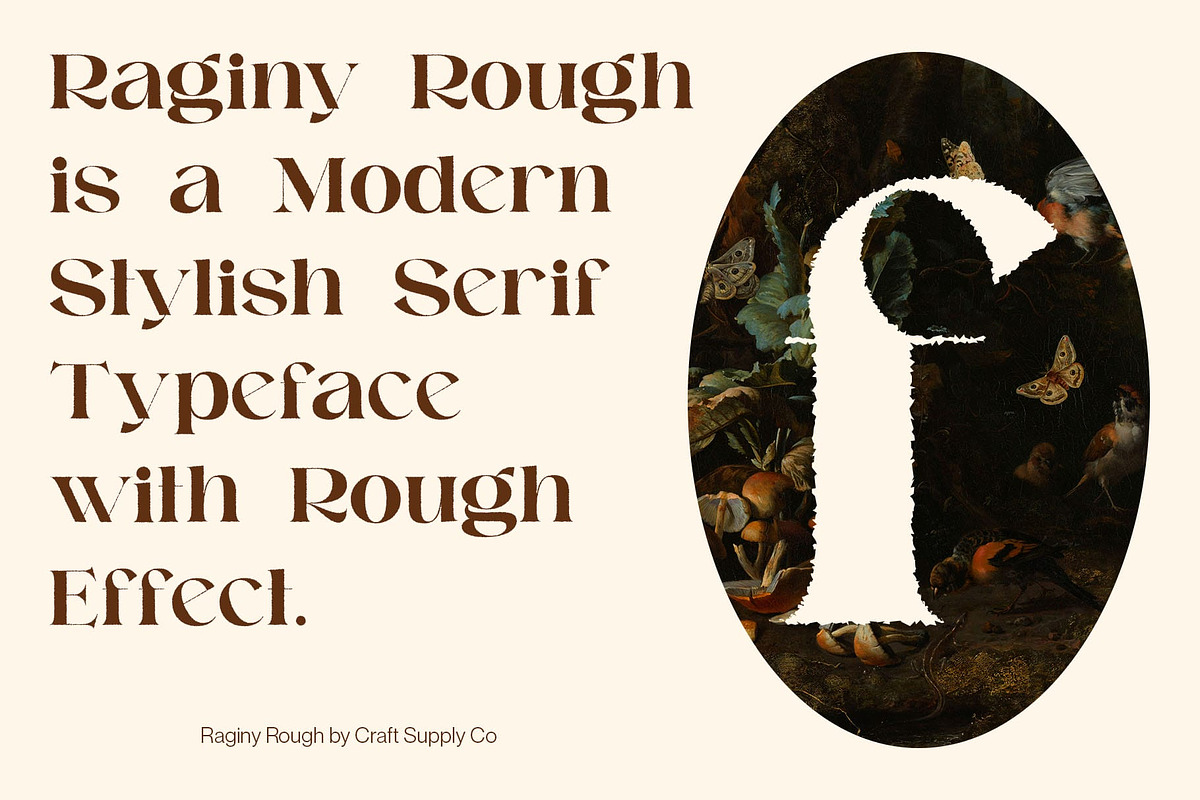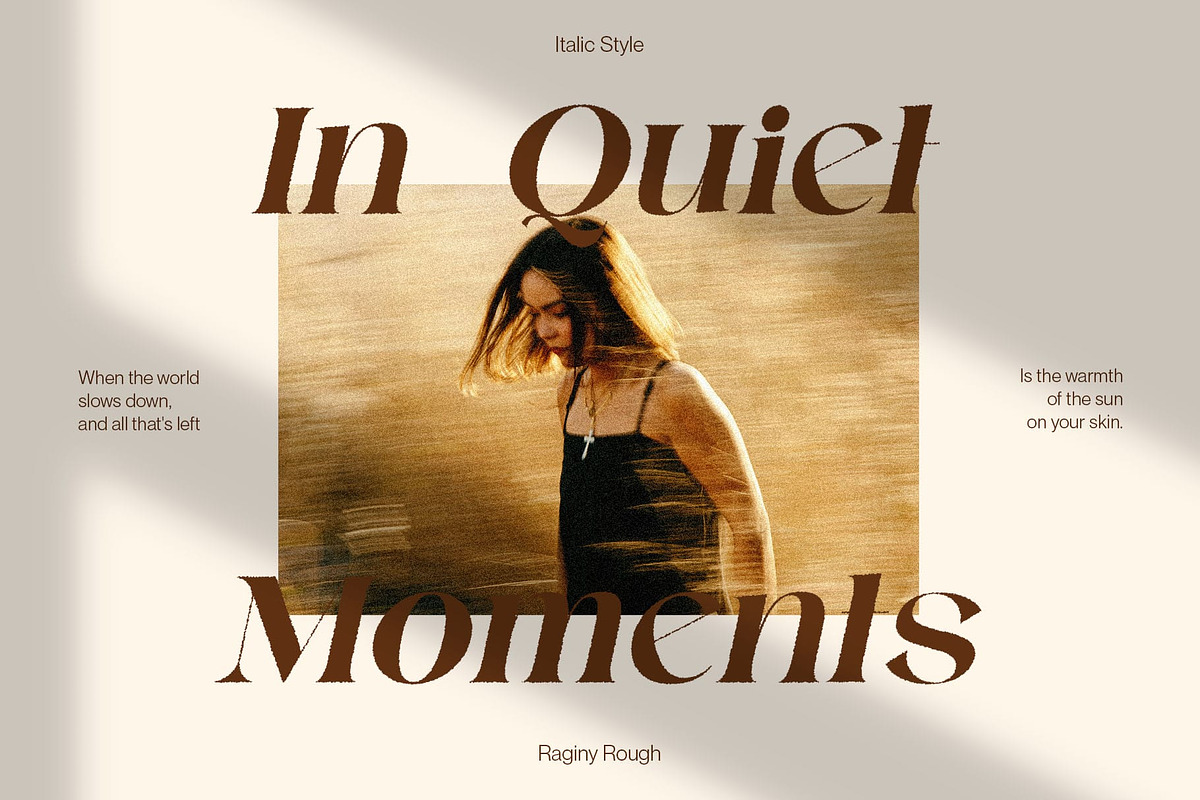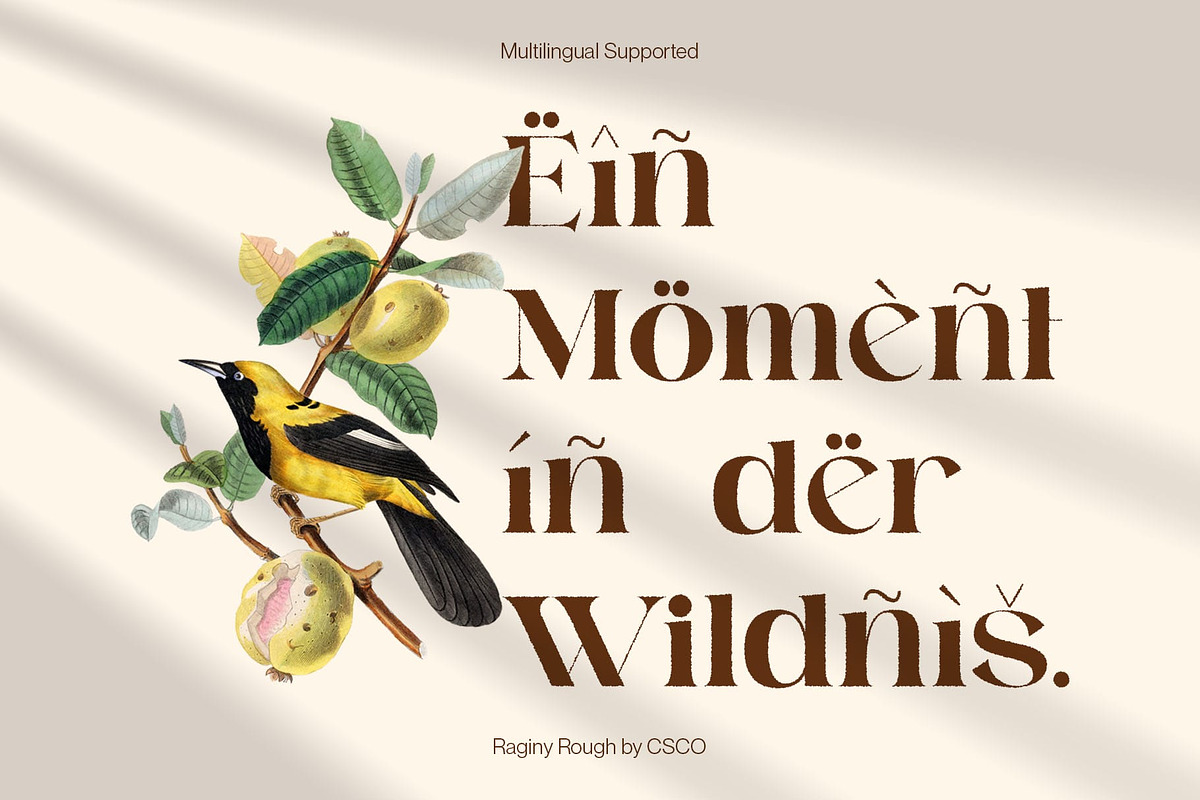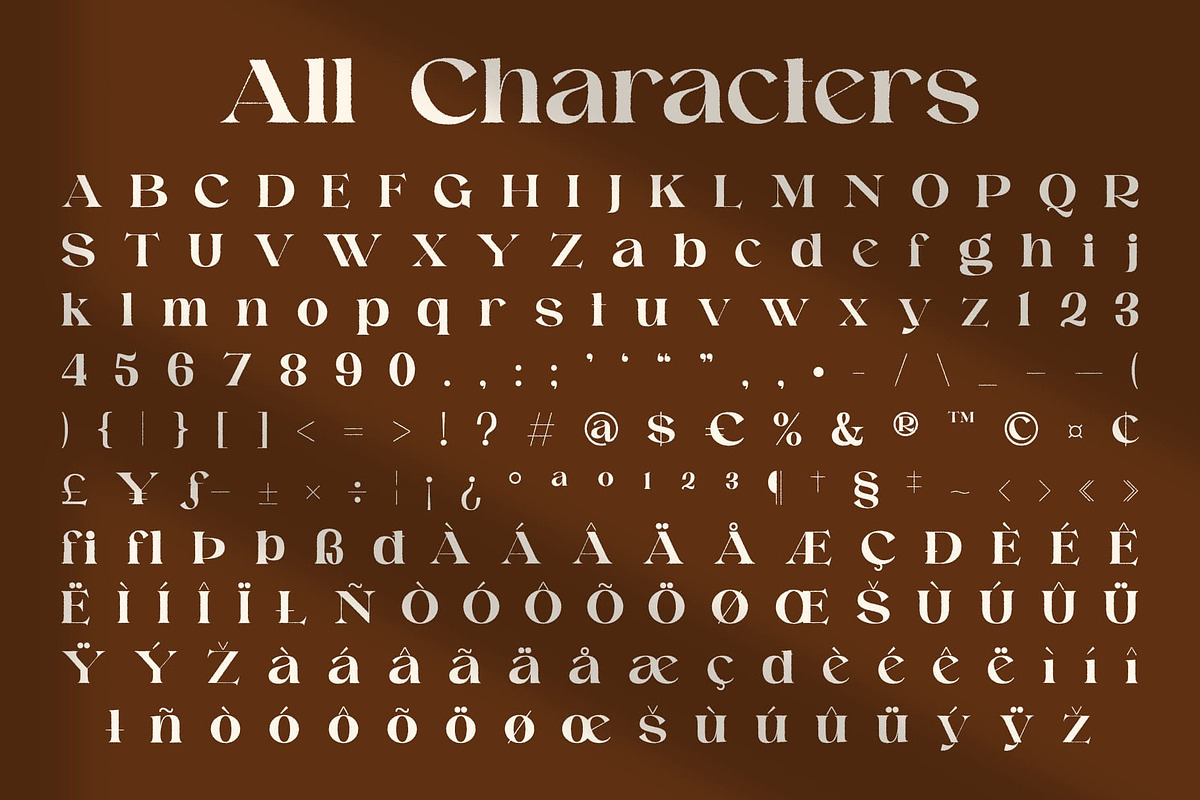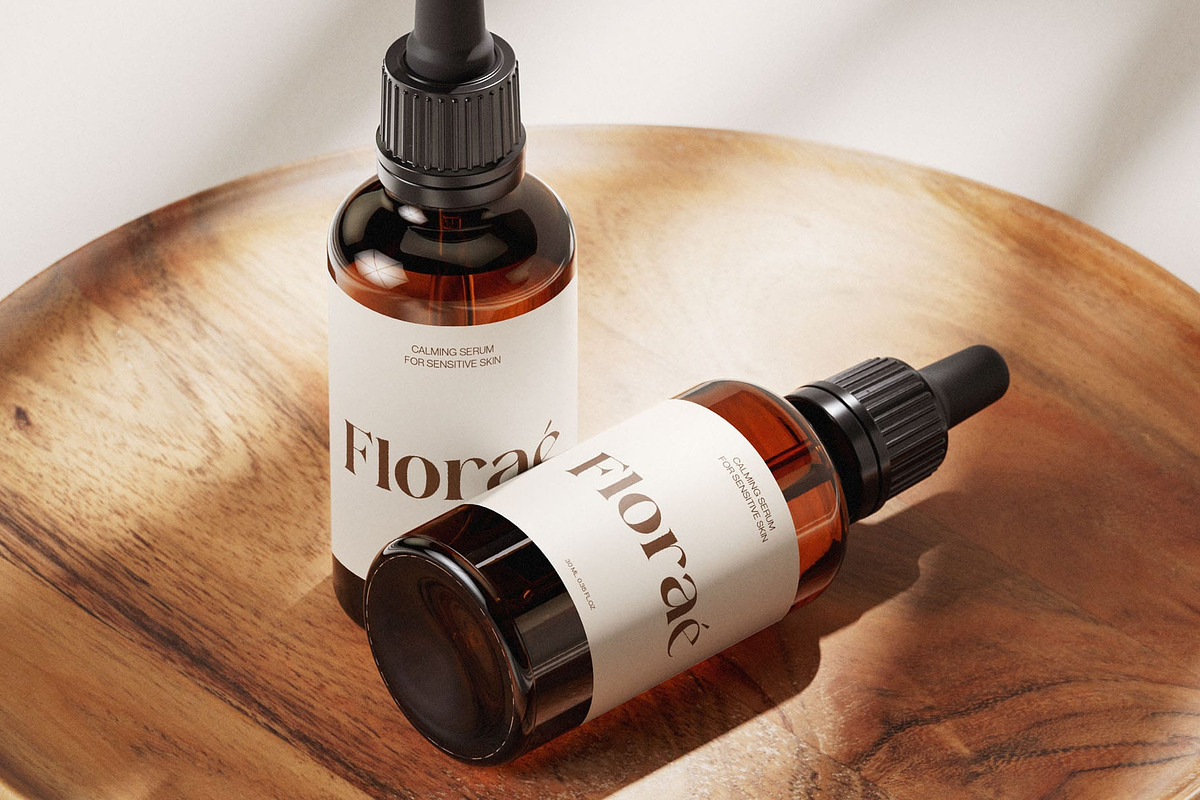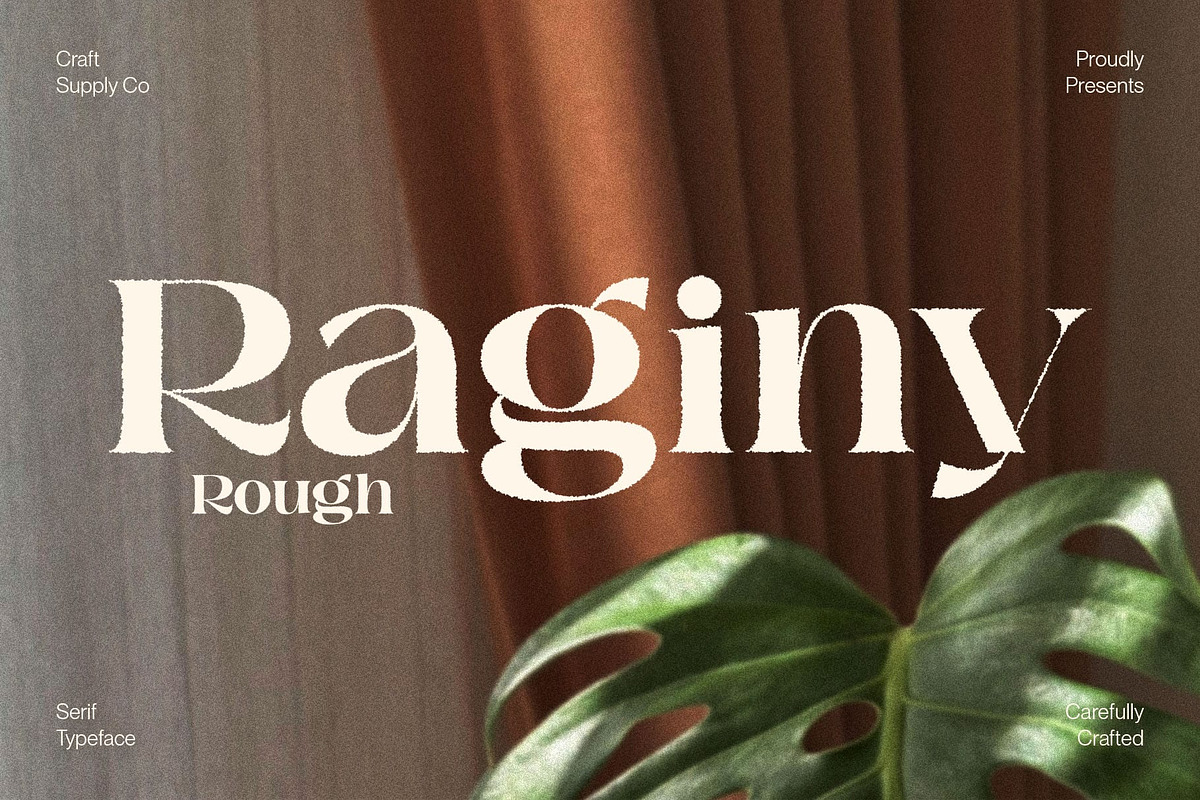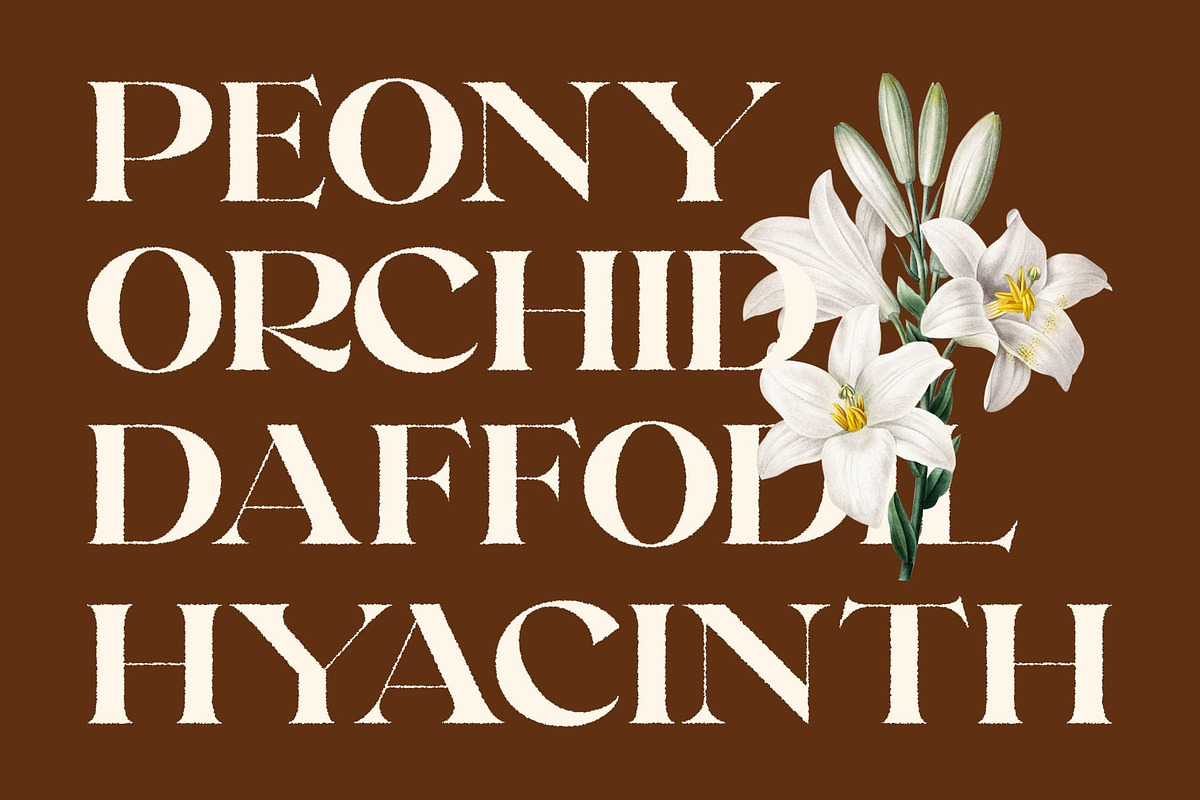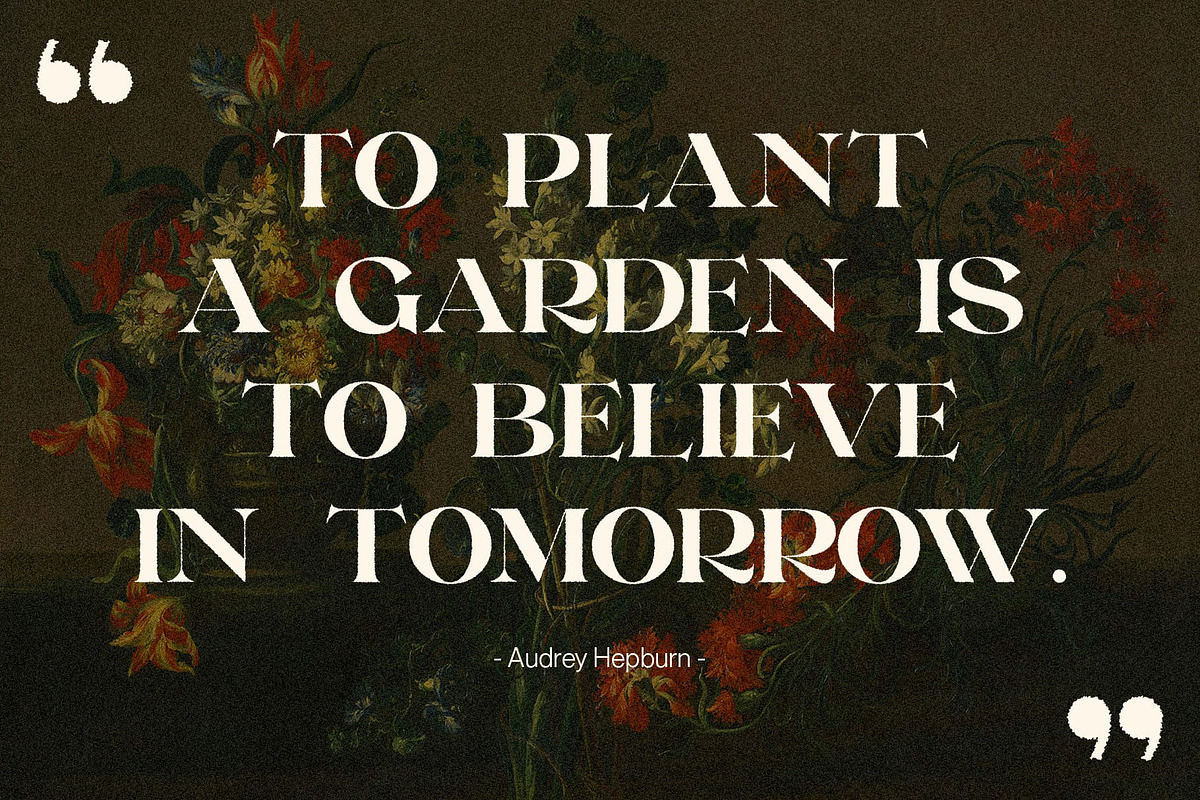
Raginy Rough
Raginy Rough Font – Modern Elegance with a Handcrafted Edge
Refined Serif Form for Contemporary Sophistication Raginy Rough is a modern serif font that showcases a clean, stylish structure with finely tuned details. Its balanced proportions and sharp serifs give it a polished, elegant look that feels right at home in contemporary branding, editorials, and upscale designs.
Rough Texture for Artistic Character What sets Raginy Rough apart is its subtle rough effect—adding a hand-drawn, textured feel to an otherwise refined typeface. The defining feature of Raginy Rough is its artistic rough effect, which introduces an organic, textured appearance to the otherwise refined serif forms. This raw, handmade look evokes the feel of letterpress printing or handcrafted design, adding personality, charm, and a sense of uniqueness to every glyph.
Striking a Balance Between Precision and Personality While the core design maintains a sleek, professional presence, the rough finish brings warmth and humanity to the typeface. It’s perfect for designers who want to communicate both modern refinement and creative authenticity in their work.
Ideal for Versatile and Expressive Applications Raginy Rough is especially suited for branding, editorial layouts, fashion lookbooks, and packaging that seeks to stand out with a crafted, luxurious touch. Its blend of sophistication and texture makes it a strong choice for projects that want to appear premium, stylish, and distinctively artistic.